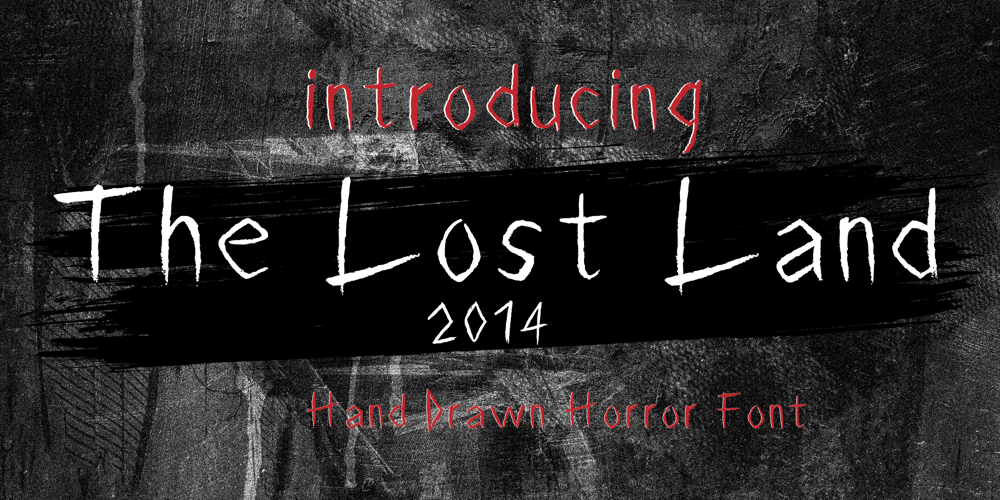
Lost Land Font Family was designed by Luiza Gasparyan and published by Umbra95. Lost Land contains 1 styles and family package options. Lost Land is a horror hand drawn font. The font made for cover design, logos, headlines, apparel design, magazine titles etc.Font includes multi-lingual and currency support, numerals, and punctuations.